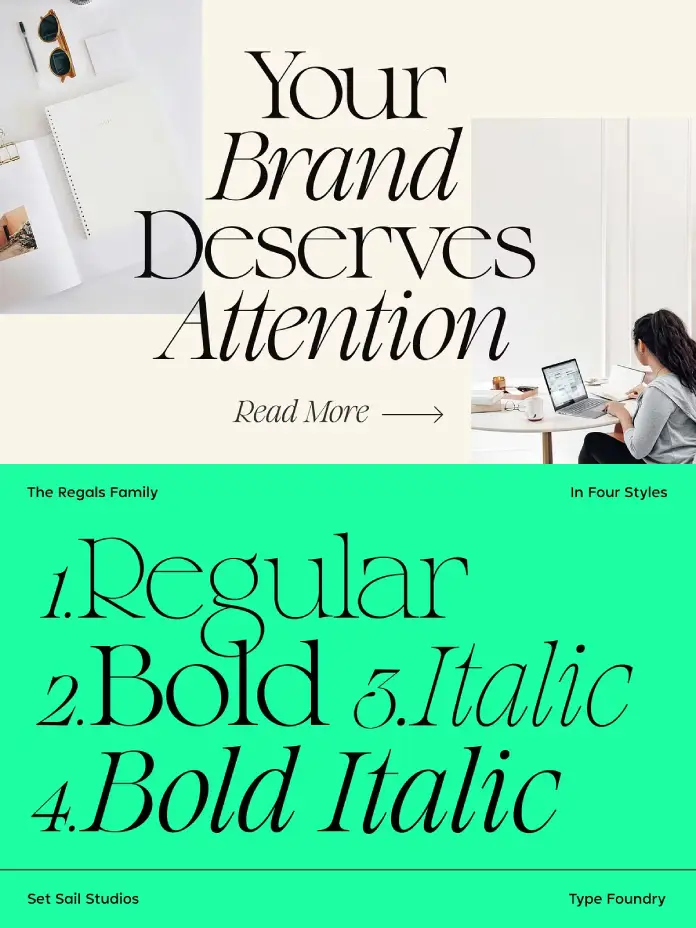
Do you know how it feels to find something genuinely unique? It could be a piece of art, a song, or even just a perfectly brewed cup of coffee. It has resonance and simply feels good. When I actually sat down with The Regals for the first time, I felt pretty much like that. Sam Parrett, the owner of Set Sail Studios, created this serif font family, and to be honest, it’s a breath of fresh air.
Why am I discussing a typeface at all? Because typography is more than just the arrangement of letters on a page. It has to do with emotion. It involves creating an atmosphere, narrating a tale, and making a point without using any words. Furthermore, it has never been more crucial to stand out and establish a sincere connection in a world that is completely engulfed in digital noise. This is where The Regals comes into play—not just as a tool, but as a silent collaborator in your artistic endeavors.
What Makes The Regals More Than Just Another Serif?
We’ve all seen our fair share of serif fonts. Some are classic, some are stuffy, some try too hard. The Regals, though, it hits a sweet spot. Sam calls it a “crisp, modern spin on a classic transitional serif,” and he’s spot on. Think of those old, elegant books you might find in a dusty library, but then imagine them getting a sleek, confident glow-up. That’s The Regals.
It’s got this incredible balance. The serifs—those little feet and caps on the letters—they’re sharp. They’re precise. But the curves? They’re smooth, almost inviting. This isn’t a font that shouts; it commands attention with an understated confidence. It has a presence. A real, undeniable presence. I’ve always believed that a truly great font should feel like it has a personality, and The Regals? It’s got that quiet, sophisticated charm that just draws you in.
The Bones of The Regals: More Than Just Pretty Letters
The magic really starts when you look at the different styles. It’s not just a one-trick pony.
- The Regals Regular: This is your foundation. It’s elegant, readable, and incredibly versatile. Use it for a fancy heading or even for longer blocks of text where you want a touch of class without being over-the-top.
- The Regals Bold: When you need to make an impact, this is your go-to. It beefs things up, adds weight, and really makes your words pop. Think headlines that demand to be read.
- The Regals Italic: This is where the grace comes in. It’s flowing, artistic, and perfect for quotes or adding a softer, more sophisticated accent to your design.
- The Regals Bold Italic: My personal favorite for those moments when you need both power and panache. It’s got the strength of the bold, but with that beautiful, dynamic slant.
These four styles mean you’re covered for almost anything. From a slick new logo for a high-end brand to a thoughtful magazine layout or even just a stylish quote on Instagram, The Regals has the range.
The Little Things That Make a Big Difference
This is where The Regals goes from “nice” to “oh wow.” We’re talking about ligatures and alternate characters. If you’re not familiar, ligatures are basically when two letters that might look a bit awkward next to each other (like “fi” or “th”) are elegantly joined into a single, seamless character. The Regals has 36 of these. Seriously, count ’em. It makes the text flow so much more beautifully. It’s a subtle touch, but it’s these little details that elevate a design from good to exceptional.
Then there are the alternates. For letters like S, Q, R, g, and t, you get these beautifully ornate versions. They’re not for every occasion, but when you need that extra bit of custom flair, that touch of bespoke luxury, they’re right there. Imagine designing a fancy invitation or a striking brand mark – these alternates give you that secret weapon to make it truly unique.
Don’t Sweat the Small Stuff: Getting Them to Work
Worried about figuring out how to use these special characters? Don’t be. Most modern design software (think Adobe Illustrator, InDesign, Photoshop) makes it super easy. Just toggle on “Standard Ligatures” or “Stylistic Alternates,” and boom, magic happens.
Even if you’re using software that’s a bit… less sophisticated, Sam’s got your back. The Regals is PUA encoded. That’s a fancy way of saying you can literally just copy and paste these special characters from your computer’s Font Book (Mac) or Character Map (Windows). No tech wizardry required. It’s all about making your life easier, right?
Why a Font Like The Regals Connects Us
In an age where everything is screaming for our attention, what makes us stop and look? Authenticity. Quality. A sense of something well-crafted. The Regals embodies this. When you use it, you’re not just picking a typeface; you’re making a statement about your brand, your message, your aesthetic.
It’s about “Brand Resonance,” I guess you could call it. When a font perfectly echoes what your brand stands for, that’s resonance. The Regals speaks of heritage, but with a confident, contemporary voice. It tells people you care about details, about elegance, about standing the test of time. This is invaluable, whether you’re a small boutique or a global enterprise. It helps build trust. It fosters connection.
I really do think about how a font feels. The Regals feels solid. It feels reliable. But it also feels light, airy, and not at all imposing. It’s like finding that perfect, classic leather jacket – it’s always in style, always makes you feel good, and it just works with everything. That’s The Regals for me. It’s a solid, beautiful choice you won’t regret.
My Two Cents: Why I Keep Coming Back to The Regals
I’ve played with countless fonts over the years. Some are fun for a moment. Some are trendy. But very few have that lasting power. The Regals is one of those rare ones. It’s become a trusted friend in my design toolkit.
It’s not trying to be flashy or groundbreaking in a loud way. Its genius is in its quiet confidence. It elevates whatever it touches without ever overshadowing the message. It’s the kind of font that makes people say, “That looks so good,” without them even realizing why it looks so good. That’s the hallmark of truly great design, isn’t it? It works its magic subtly.
You can purchase the typeface from:
So, if you’re looking to add a touch of timeless elegance, a sprinkle of modern sophistication, and a whole lot of readable charm to your next project, give The Regals a serious look. You might just find your new favorite.
Quick Questions about The Regals (The Stuff You Actually Want to Know)
What exactly is The Regals?
It’s a beautiful serif font family. Think classic elegance with a fresh, modern twist.
Who created it?
Sam Parrett from Set Sail Studios. He’s got a real knack for this stuff.
How many different versions (styles) does it come in?
You get four: Regular, Bold, Italic, and Bold Italic. Enough to cover all your bases!
Can I use it for more than just English?
Yep, it’s got language support for a bunch of European languages, so it’s pretty versatile for global projects.
What are “ligatures” and “alternates,” and how do I use them?
Ligatures are those fancy combined letters (like “fi” becoming one elegant character). Alternates are special, decorative versions of certain letters. Most design software lets you turn them on easily with a click. If not, you can usually copy them from your computer’s font viewer.
Is The Regals good for logos?
Absolutely! It brings a classy, refined touch to any brand mark.
Can I use it for headlines and smaller text?
Totally. It’s clear and readable enough for body text, but it also shines as a headline font.
What makes it special compared to other serif fonts?
It hits that perfect sweet spot between traditional and contemporary, and all those extra ligatures and alternates give you so much creative freedom.